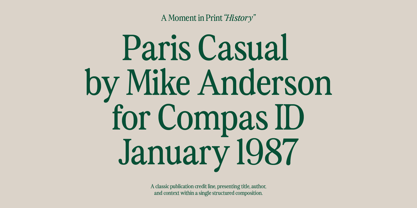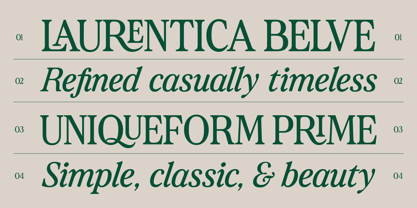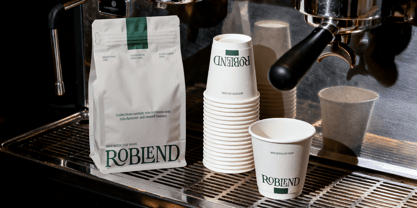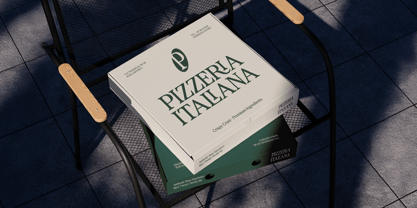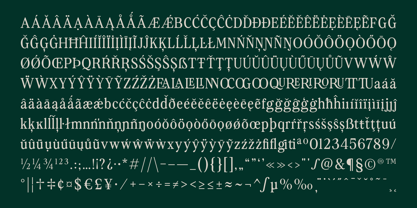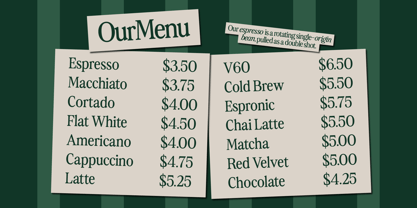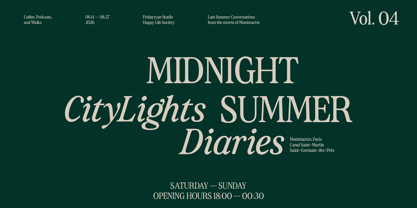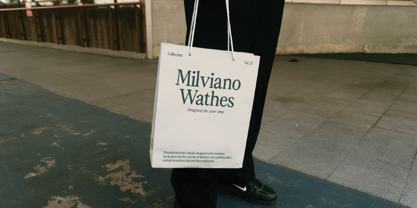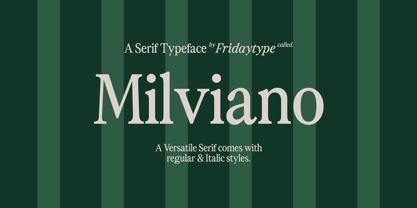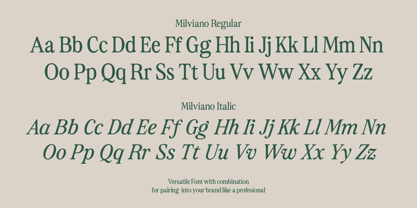
Milviano
by Fridaytype
Milviano
is a refined serif typeface that blends timeless elegance with a modern editorial spirit. Designed with balanced proportions, graceful curves, and subtle contrast, it brings a sophisticated yet approachable character to every composition.
Inspired by classic European typography and contemporary fashion editorials, Milviano works beautifully across branding, packaging, magazines, café identities, luxury products, and visual storytelling. The family includes Regular and Italic styles, allowing designers to create rich typographic hierarchy with ease.
Its distinctive letterforms feel stylish without being overwhelming — making Milviano versatile for both minimal layouts and expressive creative directions.
— Uppercase & Lowercase
— Numbers & Punctuation
— Multilingual Support
— Ligatures
— Regular & Italic Styles
Elegant. Versatile. Timelessly expressive.